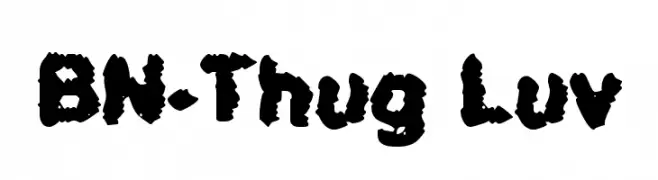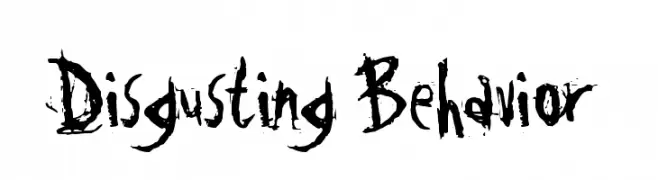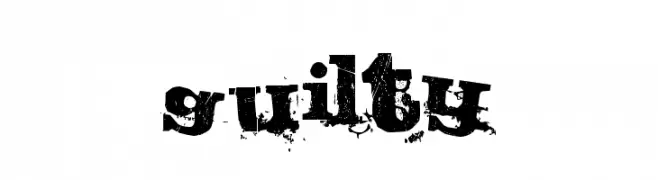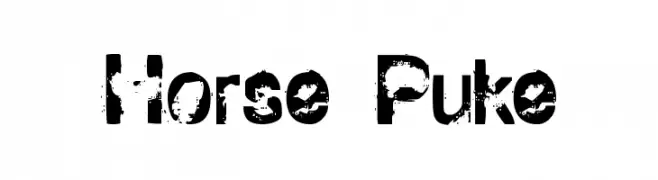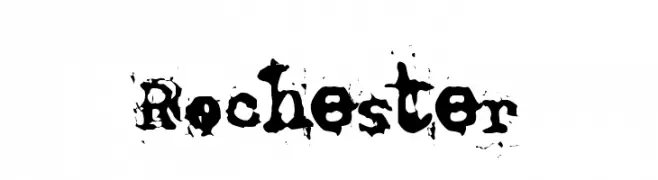
A bold, distressed font with a grungy, textured appearance.
A distressed, grungy font with a vintage, weathered appearance.
A grungy, distressed font with jagged, irregular strokes and a rebellious vibe.
A distressed, grungy font with a bold, weathered appearance.
A bold, rugged font with jagged edges and a grungy, distressed style.
A distressed, grungy font with rough edges and a bold, vintage appearance.